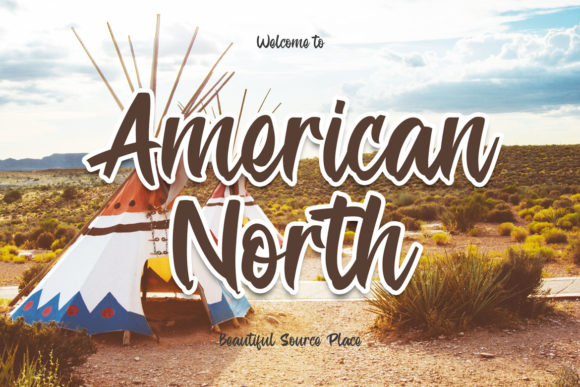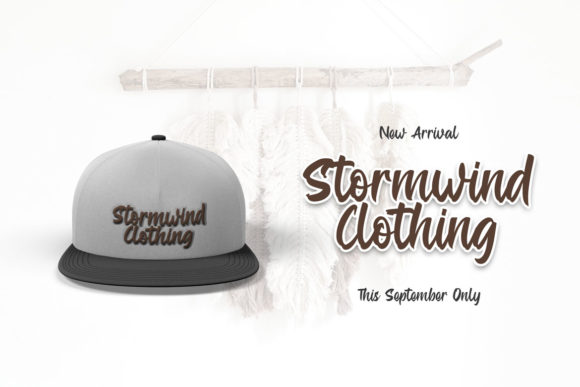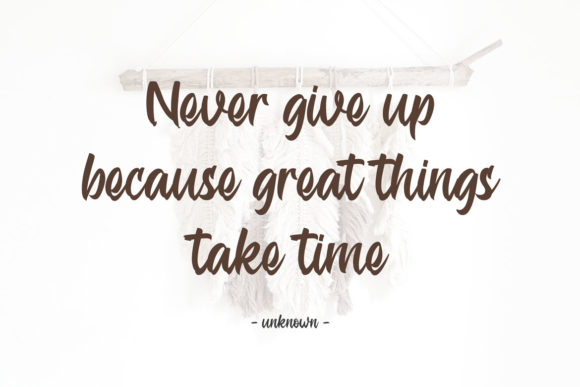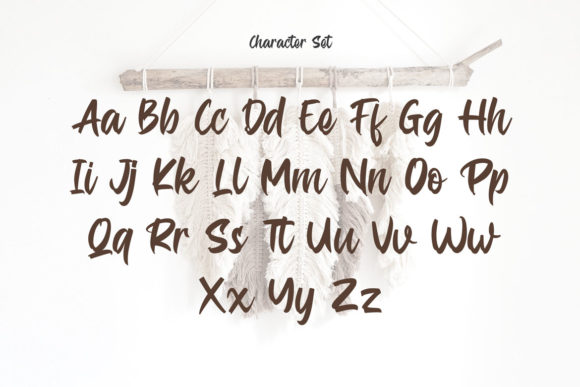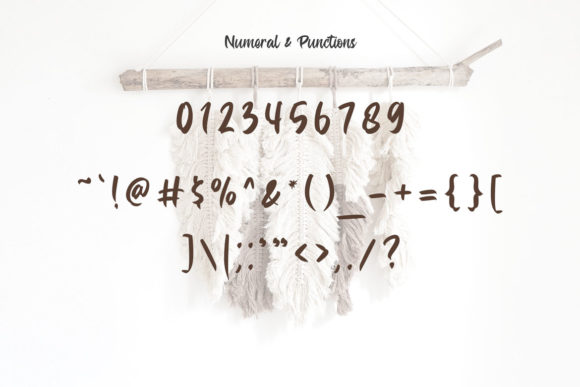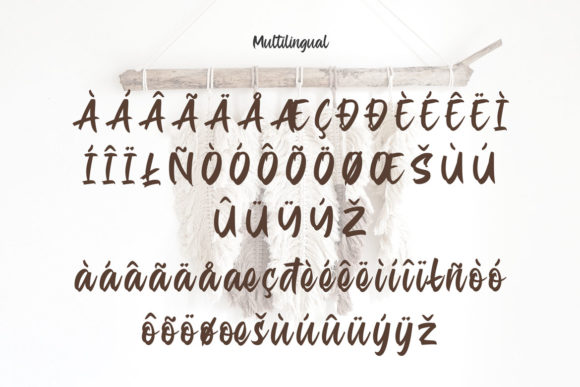
Darkspear Font: The Ultimate Choice for Elegant and Versatile Designs
Are you tired of using the same old fonts in your designs? Look no further than Darkspear, a simple, elegant, and relaxed handwritten font that is sure to capture your heart. With its incredibly versatile style, Darkspear is the perfect choice for designers and crafters looking to create beautiful and unique designs.
What Makes Darkspear Font So Special?
Darkspear font is a one-of-a-kind handwritten font that exudes elegance and sophistication. Its simple yet refined design makes it perfect for a wide range of design projects, from wedding invitations and branding materials to social media graphics and blog posts. The font’s relaxed and effortless style gives it a friendly and approachable feel, making it ideal for designers who want to create a personal connection with their audience.
Key Features of Darkspear Font
- Simple and Elegant Design: Darkspear font features a clean and minimalist design that is both elegant and refined.
- Versatile Style: The font’s versatile style makes it perfect for a wide range of design projects, from formal to informal.
- Handwritten Look and Feel: Darkspear font has a genuine handwritten look and feel that adds a personal touch to any design.
- Easy to Read: The font is highly legible, making it perfect for body text and headlines.
How to Use Darkspear Font in Your Designs
Darkspear font is incredibly easy to use and can be applied to a wide range of design projects. Here are a few ideas to get you started:
- Wedding Invitations: Use Darkspear font to create beautiful and elegant wedding invitations that set the tone for a special day.
- Branding Materials: Darkspear font is perfect for creating professional and sophisticated branding materials, such as logos, business cards, and letterheads.
- Social Media Graphics: Use Darkspear font to create eye-catching social media graphics that stand out from the crowd.
- Blog Posts: Darkspear font is ideal for blog posts, adding a personal touch to your written content.
Tips and Tricks for Getting the Most Out of Darkspear Font
Here are a few tips and tricks to help you get the most out of Darkspear font:
- Experiment with Font Sizes: Darkspear font looks great in a variety of font sizes, from large headlines to small body text.
- Pair with Other Fonts: Darkspear font pairs well with other fonts, so don’t be afraid to experiment with different font combinations.
- Use in Combination with Images: Darkspear font looks great in combination with images, adding a personal touch to your visual content.
In conclusion, Darkspear font is a simple, elegant, and relaxed handwritten font that is perfect for designers and crafters looking to create beautiful and unique designs. With its incredibly versatile style and easy-to-use design, Darkspear font is sure to become a favorite in your design arsenal. So why wait? Fall in love with Darkspear font today and start creating stunning designs that capture your audience’s heart!
- Is Darkspear font suitable for body text?: Yes, Darkspear font is highly legible and suitable for body text. However, it’s also perfect for headlines and titles.